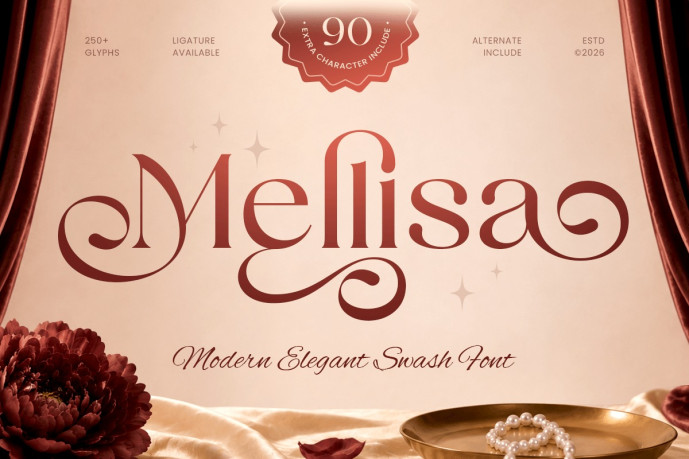
Mellisa – Modern Elegant Font
Mellisa is a modern elegant swash font crafted for graceful branding, refined typography, and sophisticated visual identity. With flowing curves, stylish swashes, and elegant letterforms, it creates a beautiful and memorable presence for every design.
Designed for logos, wedding invitations, fashion branding, beauty packaging, boutique identity, editorial layouts, and social media graphics, Mellisa blends timeless elegance with modern decorative style. Perfect for designers who want a swash font with feminine charm, refined details, and premium visual personality.
Mellisa Font Features
Uppercase & lowercase
Elegant swash characters
Alternates & ligatures
Multilingual support
Professional kerning